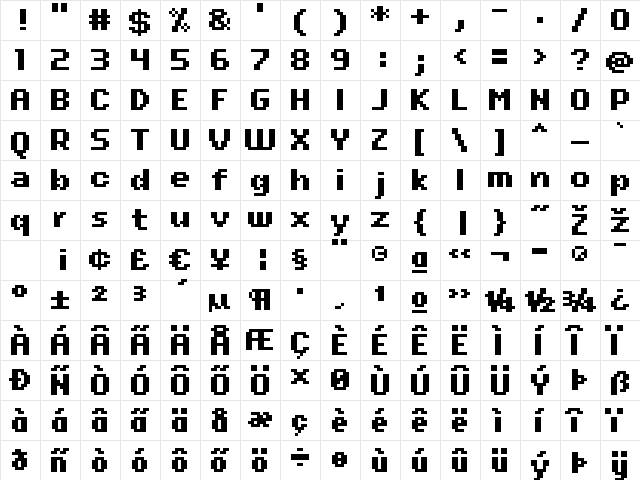
kroeger 07_65 Regular
| Designer | Craig Kroeger |
Design Context for kroeger 07_65 Typeface
kroeger 07_65 is a composed and adaptable typeface that performs quietly and consistently across a wide range of design contexts.